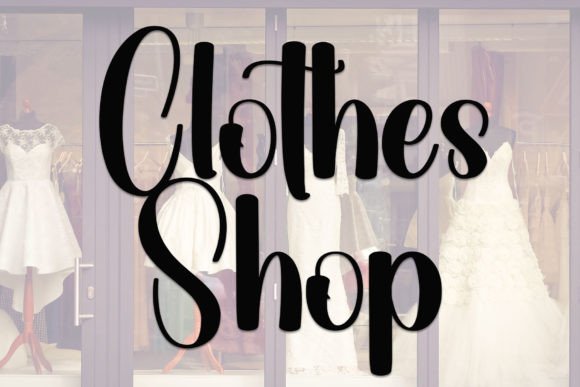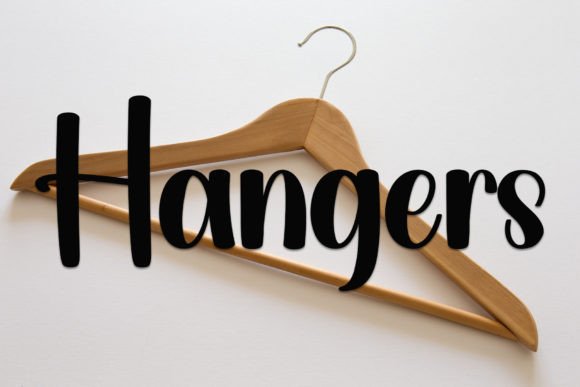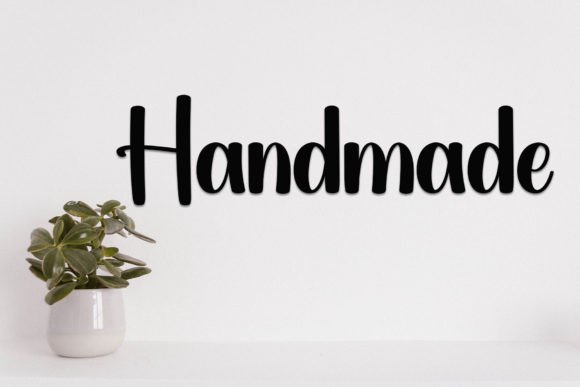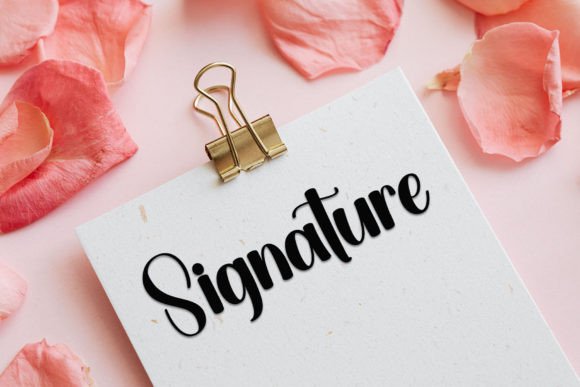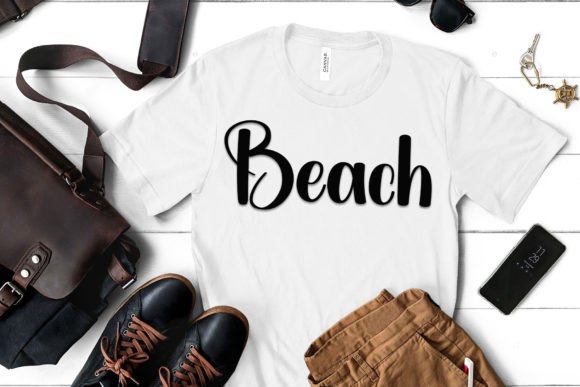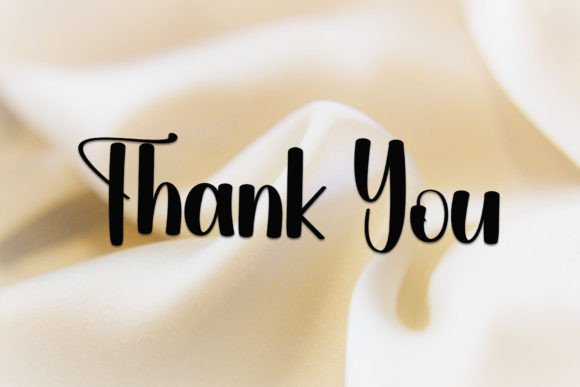
Introducing Fabric Font: Elevate Your Designs with Elegance
Are you on the hunt for a font that exudes sophistication and charm? Look no further than Fabric Font, a stunning handwritten font that is sure to capture your heart. With its elegant touch and timeless style, Fabric Font is the perfect addition to any design project. In this article, we’ll dive into the world of Fabric Font, exploring its unique features, uses, and benefits for designers and crafters alike.
The Beauty of Fabric Font
Fabric Font is a meticulously crafted handwritten font that boasts an incredibly distinct and timeless style. Its elegant touch is evident in every curve and line, making it a true masterpiece. This beautiful font is perfect for a wide range of projects, from wedding invitations and branding materials to social media graphics and digital art.
What Makes Fabric Font So Special?
So, what sets Fabric Font apart from other fonts? Here are just a few of its standout features:
- Elegant and Refined: Fabric Font’s elegant touch makes it perfect for designs that require a level of sophistication and refinement.
- Timeless Style: Unlike trendy fonts that quickly go out of style, Fabric Font’s classic design ensures it will remain relevant for years to come.
- Versatile: Whether you’re working on a digital project or a print design, Fabric Font adapts seamlessly to any medium.
- Easy to Read: Despite its elegant nature, Fabric Font remains highly legible, making it perfect for body text and headings.
Uses for Fabric Font
Fabric Font’s versatility makes it an excellent choice for a wide range of design projects, including:
- Wedding Invitations and Stationery: Add a touch of elegance to your wedding designs with Fabric Font’s sophisticated style.
- Branding and Packaging: Use Fabric Font to create a lasting impression with your brand’s visual identity.
- Social Media Graphics: Elevate your social media presence with Fabric Font’s beautiful, eye-catching text.
- Digital Art and Illustration: Combine Fabric Font with your illustrations to create stunning, professional-grade artwork.
Tips for Using Fabric Font
To get the most out of Fabric Font, here are some expert tips:
- Pair with Contrasting Fonts: Combine Fabric Font with a bold, contrasting font to create visual interest and hierarchy.
- Experiment with Colors: Try pairing Fabric Font with a range of colors to find the perfect match for your design.
- Use for Headings and Titles: Fabric Font’s elegant style makes it perfect for headings and titles, adding a touch of sophistication to your designs.
In conclusion, Fabric Font is a beautiful, elegant handwritten font that is sure to elevate your designs to new heights. With its timeless style, versatility, and ease of use, Fabric Font is an excellent choice for designers and crafters alike. Whether you’re working on a wedding invitation, branding project, or digital art piece, Fabric Font is the perfect addition to help you create spectacular designs.